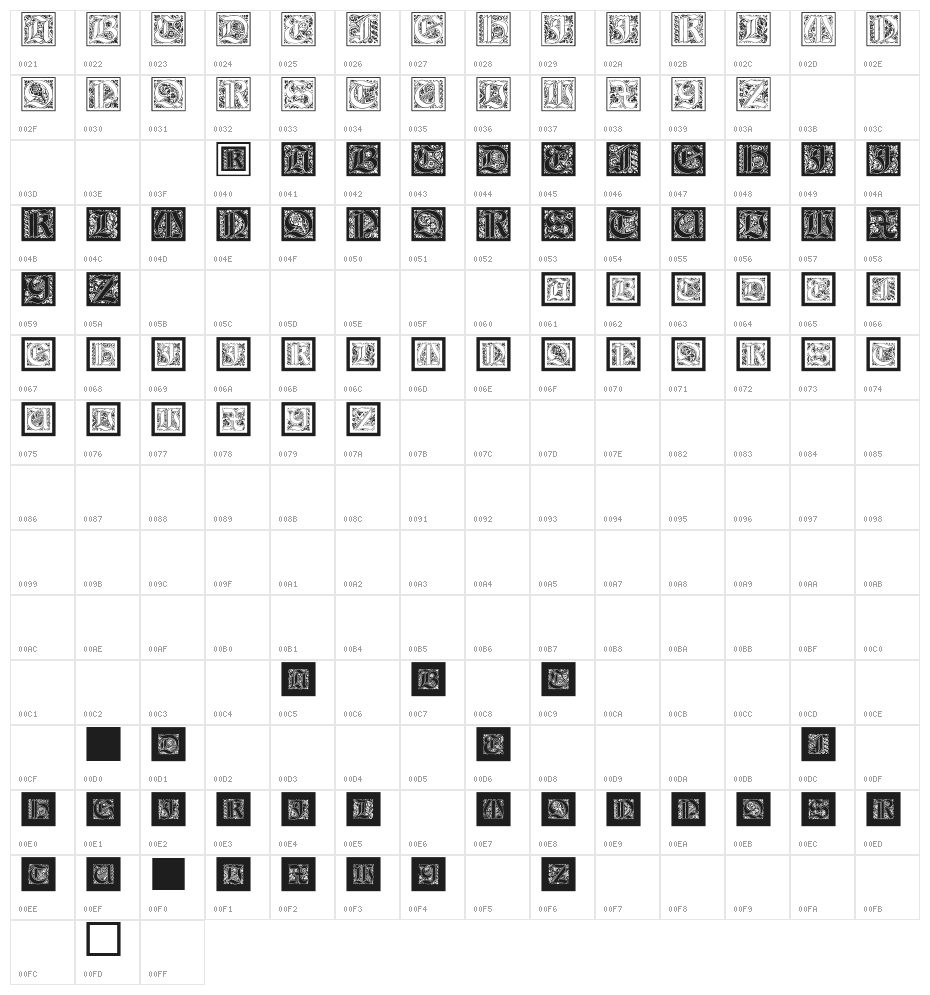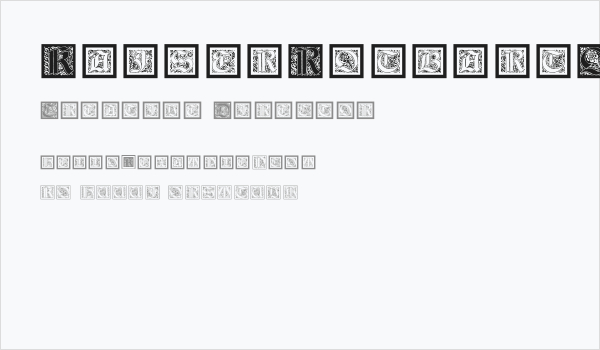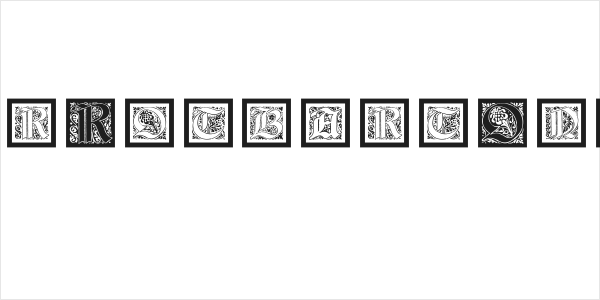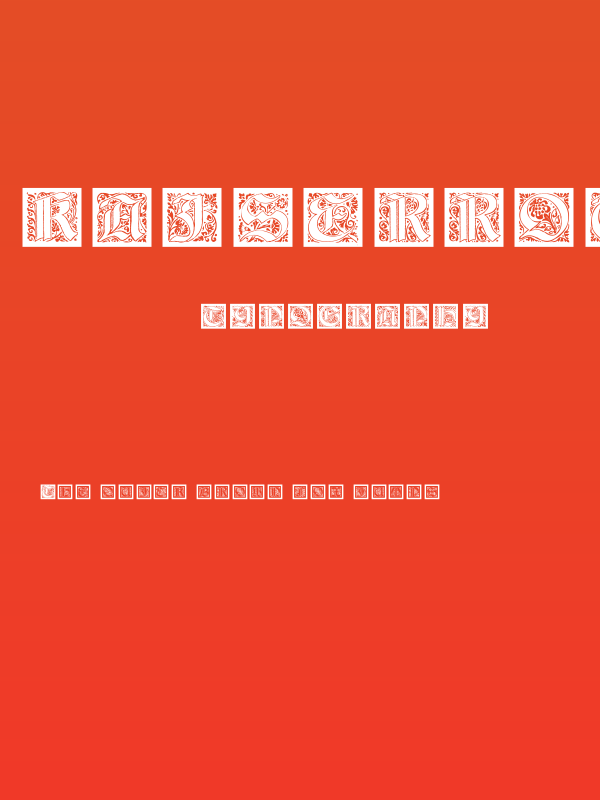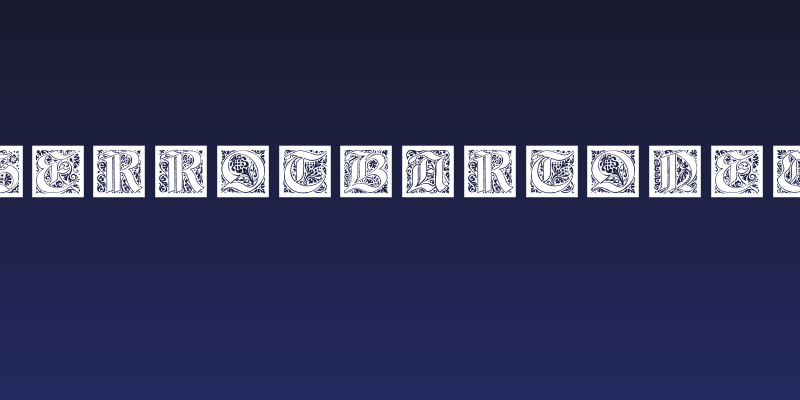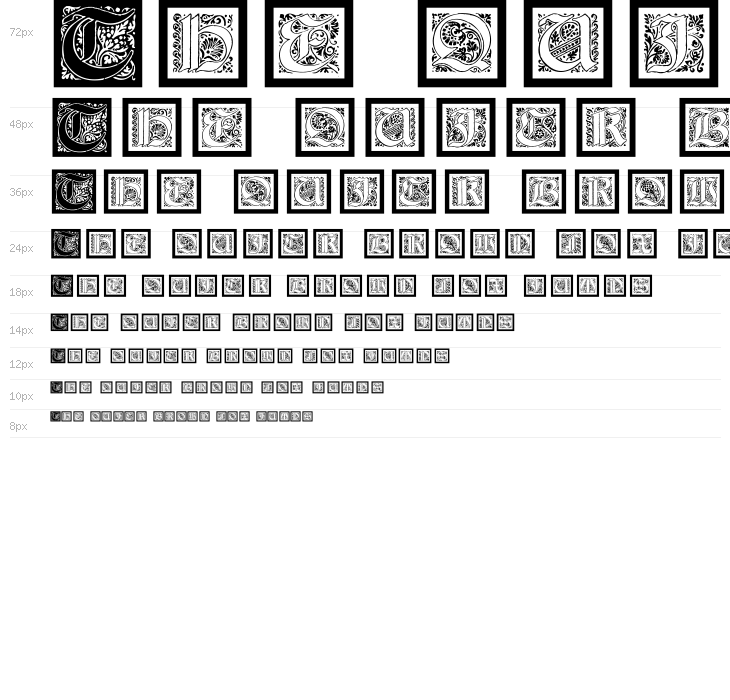
KaiserRotbartOneCaps Font
KaiserRotbartOneCaps Description
This font is a highly decorative and ornate typeface, characterized by intricate floral and vine-like embellishments within each letter. The design is reminiscent of medieval or renaissance art, with each character enclosed in a square border, giving it a distinct and elaborate appearance. The letters are uppercase only, with no lowercase or numerals present, emphasizing its use for decorative purposes rather than practical text. The intricate details within each letter make it suitable for artistic and ornamental applications, where visual impact is prioritized over readability.
| Overall Style | Vintage |
| Use Case | Logos, Headlines, Decorative purposes |
| Proposed Projects | Ideal for use in vintage-themed designs, wedding invitations, book covers, and decorative signage where a historical or artistic touch is desired. |